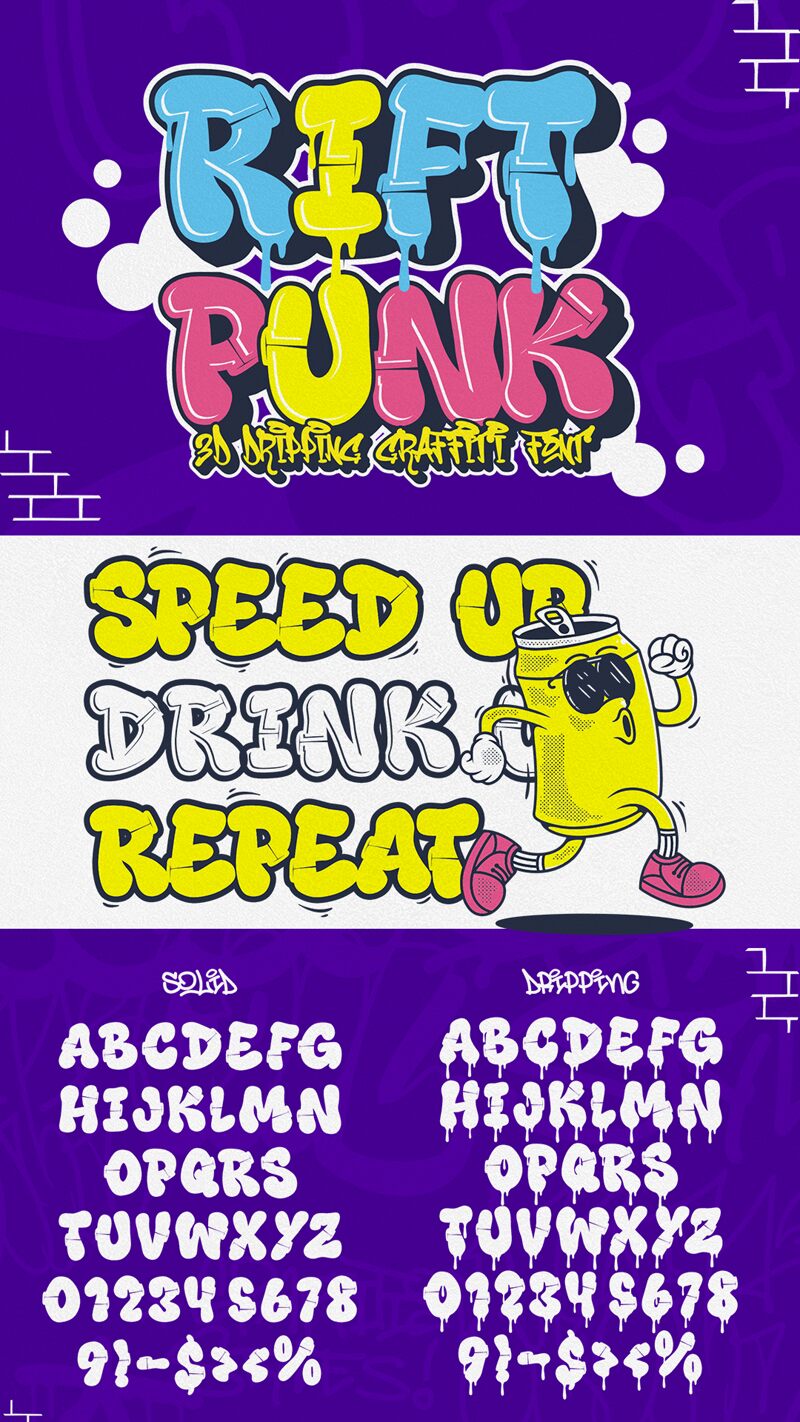
Rift Punk font family by Cikareotype Studio consists of [NUMBER] font styles ideal for your graffiti and urban designs. This font family combines dynamic letters inspired by the street culture in a playful manner. Energetic and impactful, each letter draws the observer in, challenging him to read the full text. Expressive and modern, this typeface uses each character to reflect its uniqueness, a feature that’s included to mimic street art.
The [BRAND] scripts font will make the perfect addition to streetwear ads, animated movies, and video games inspired by graffiti. You can use it for branding or in the designing process of skateboard motifs. Fans of the art style can have fun designing album covers and posters with ideas inspired by Japanese graffiti styles.